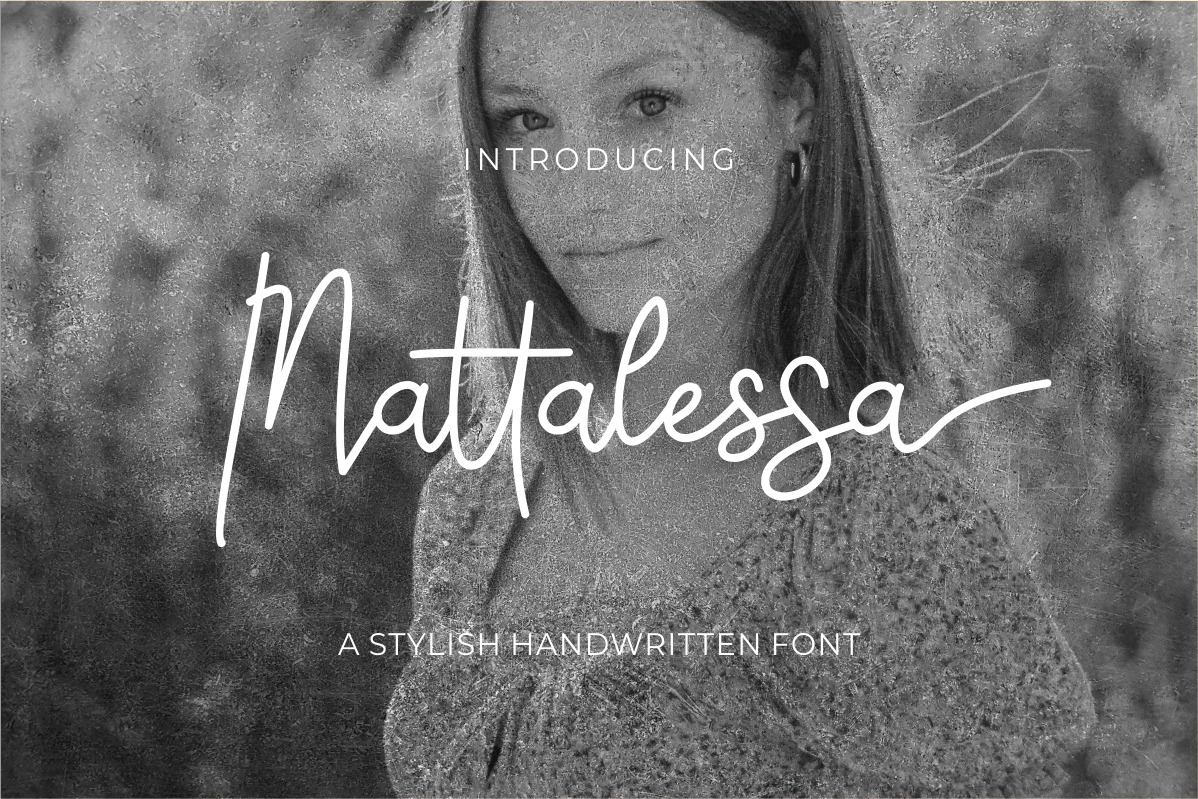
Mattalessa Signature Business Font
Mattalesa - handwritten font
Hi Ladies and Gentlemen! According to the market demand, the font is more inclined to the signature font, so I decided to make this signature font in your view. The Mattalssa font is a simple and very popular font, comes with a modern style hoping to be accepted by the market. We keep this font looking elegant, classy, easy to read, stylish, attractive and easy to use. Mattalessa Font is a great choice for watermarks on photography, signature or signature logo designs, business brand names, quotes, album covers, beauty, business cards, packaging and many other design projects. From business cards to photo watermarks, The Mattalessa is here to take your work to the next level.
Font Features: • Lowercase end of swash • Twin letter selection ligature